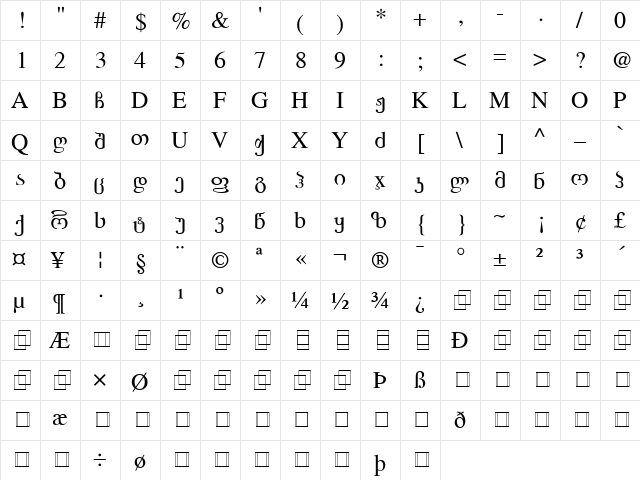
Tamta Regular
Design Context for Tamta Typeface
Tamta offers clean, dependable letterforms without strong stylistic allegiance, making it a practical choice for designers who need flexibility.
Pro Tip: Use Tamta in both headline and body roles to test its range before committing to a single application.